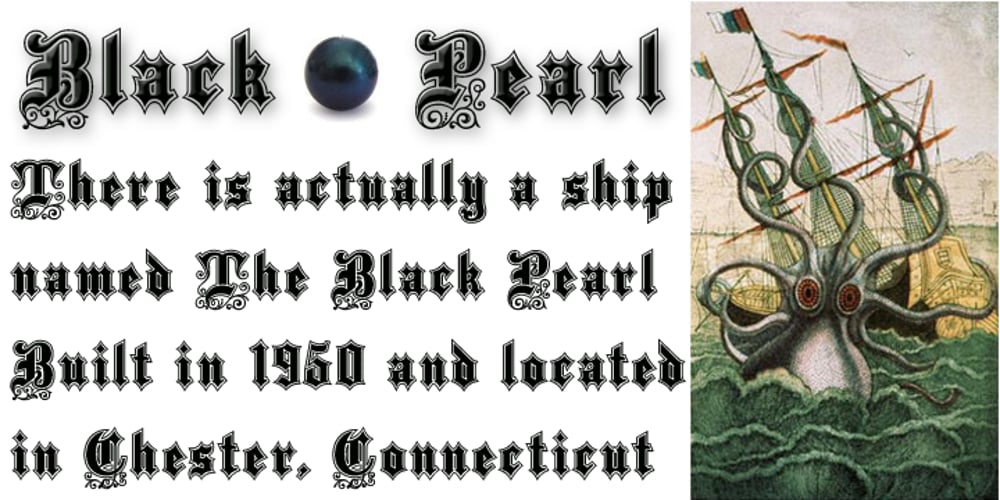
Black Pearl
Black Pearl font
Black Pearl Font Family was designed by Michael Hagemann and published by FontMesa. Black Pearl contains 1 styles and family package options. Black Pearl is a revival of an ornate calligraphic font possibly created between 1850 and 1870. I spent two years looking for all the letters of this font; once I found them all, I immediately went to work on recreating this old classic. I was not able to find any numbers for the font, so new to this style are numbers, some punctuation and currency symbols. The Truetype and OpenType formats include an extended character set with Central and Eastern European accented letters. Extra characters in this font are left and right pointing hands in place of the less than and greater than keys; a ship’s wheel, located on the asterisk key; and a boat anchor on the bracket keys.